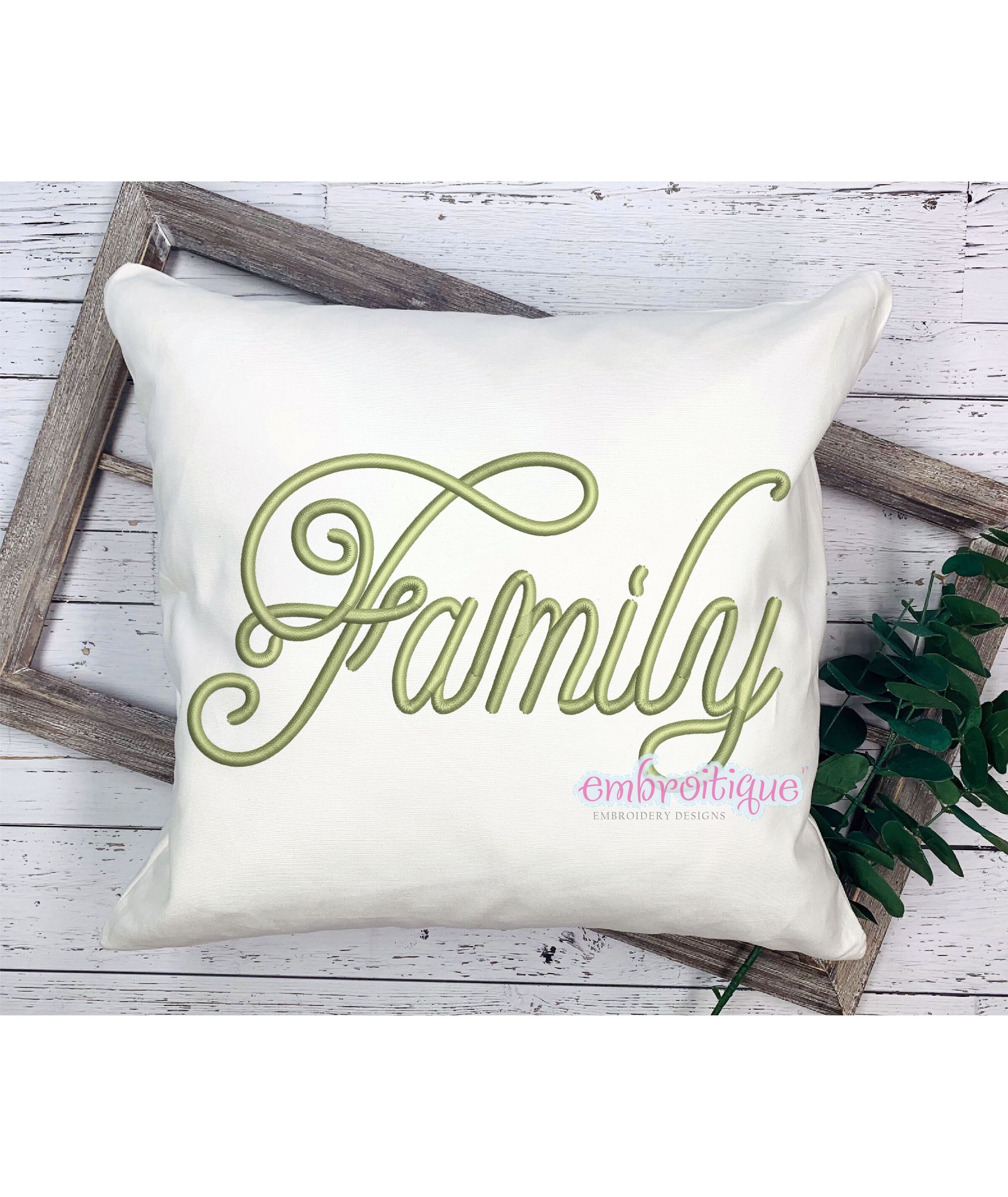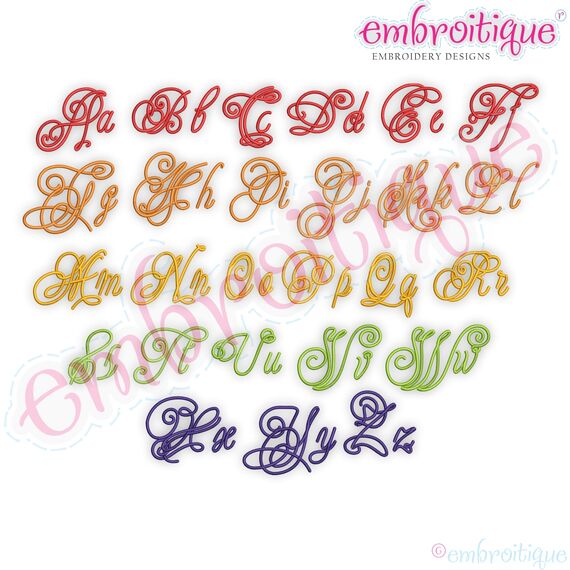
Featherly Monogram Set -Medium Sizes - Script Italics Font
Gorgeous italics font that includes Aa-Zz. Medium Set includes sizes 2.5", 3.0", 3.5", 4.0". Also available in smaller sizes (sold seperately).